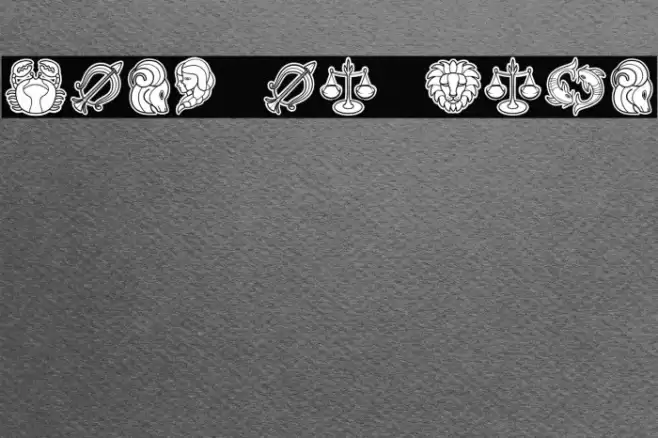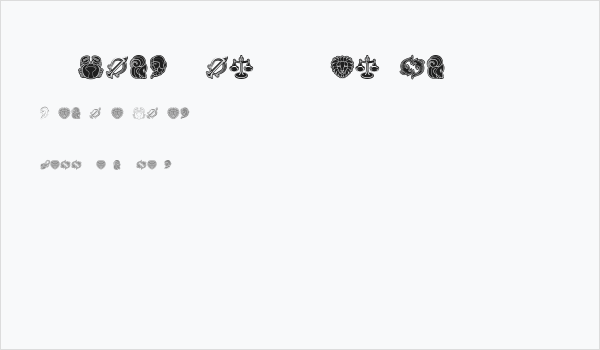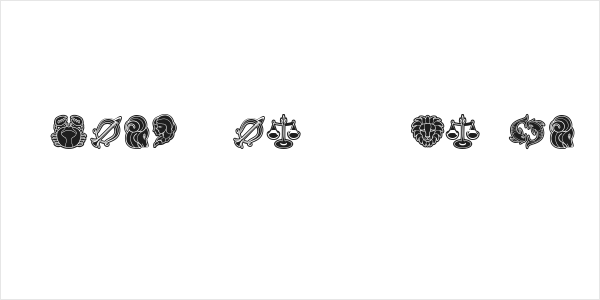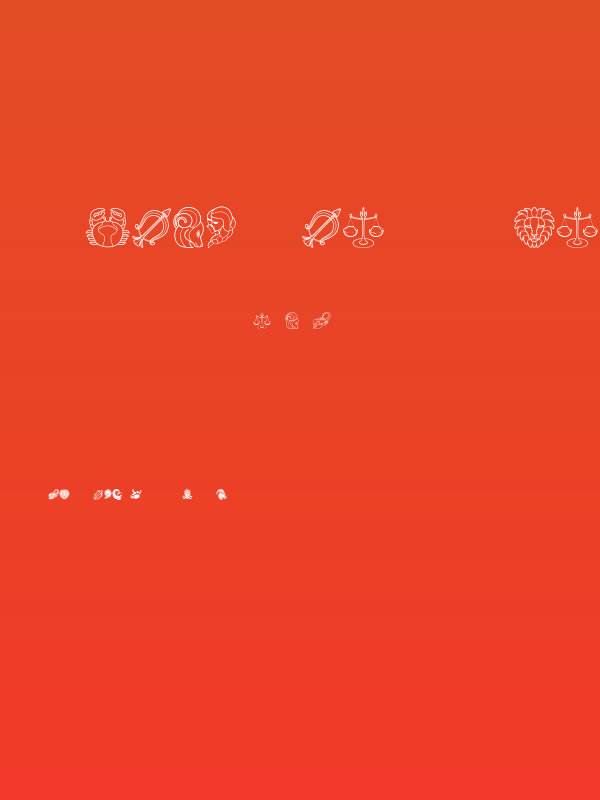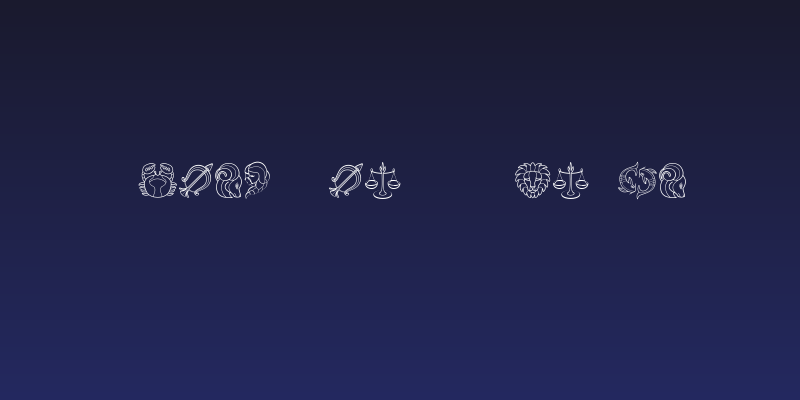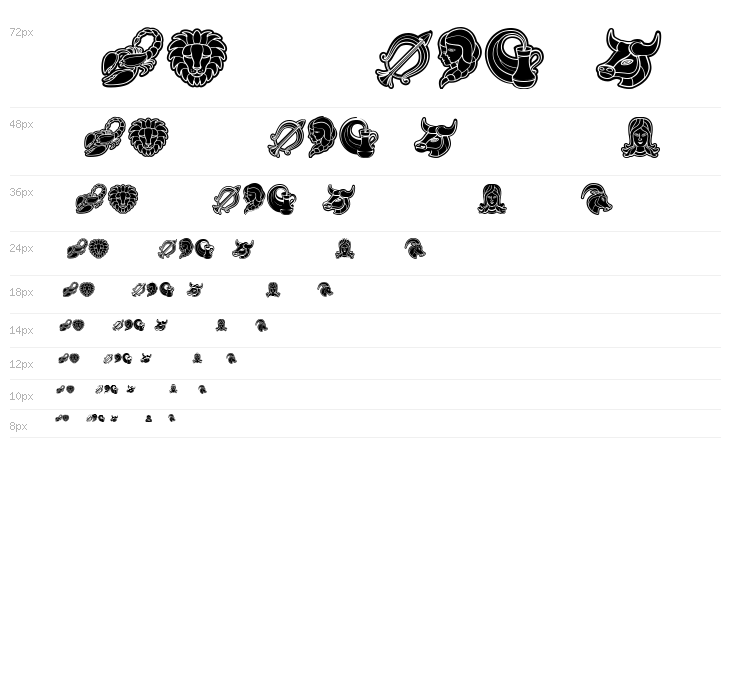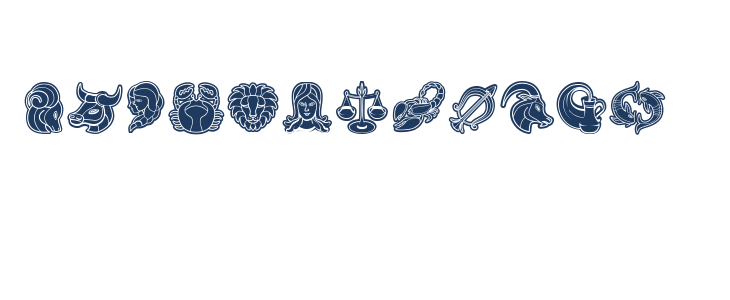
Zodiac Signs Regular Font
Zodiac Signs Regular Description
This design features a collection of zodiac symbols, each intricately crafted to represent the unique characteristics of the astrological signs. The symbols are bold and decorative, with a consistent line weight that gives them a cohesive appearance. Each sign is depicted with a stylized, artistic flair, making them suitable for various creative applications. The designs are detailed yet clear, ensuring they are easily recognizable while maintaining an artistic touch.
| Use Case | Logos, Decorative prints, Digital content |
| Proposed Projects | Ideal for astrology-themed projects, personalized gifts, decorative prints, or digital content focusing on horoscopes and zodiac signs. |